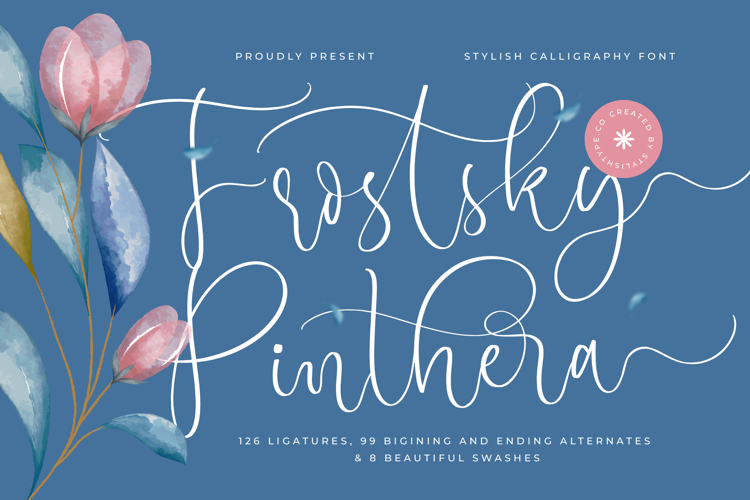
Frostsky Pinthera - Stylish Calligraphy Font
Frostsky Pinthera - Stylish Calligraphy Font, a magnificent script typeface defined by its fluid connections and unmistakable elegance. This font captures the spontaneous beauty of hand-lettered calligraphy, offering a truly romantic and sophisticated presence. Its slender, high-contrast strokes and generous swash extensions ensure that every word feels custom-crafted and luxurious, instantly transforming ordinary text into exquisite visual artistry suitable for premium content.